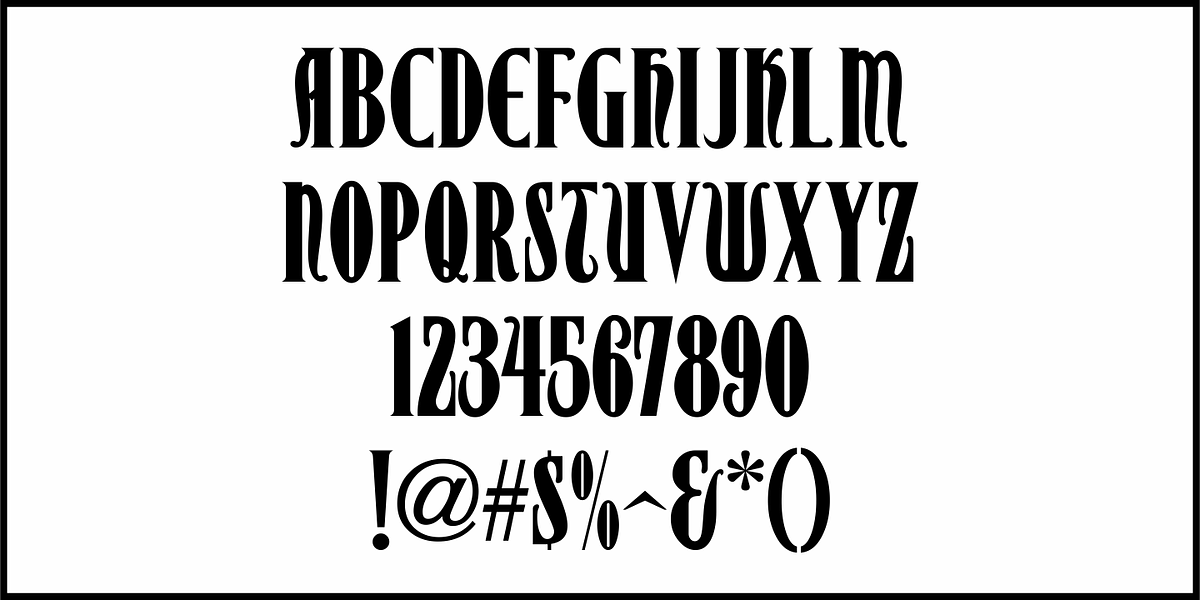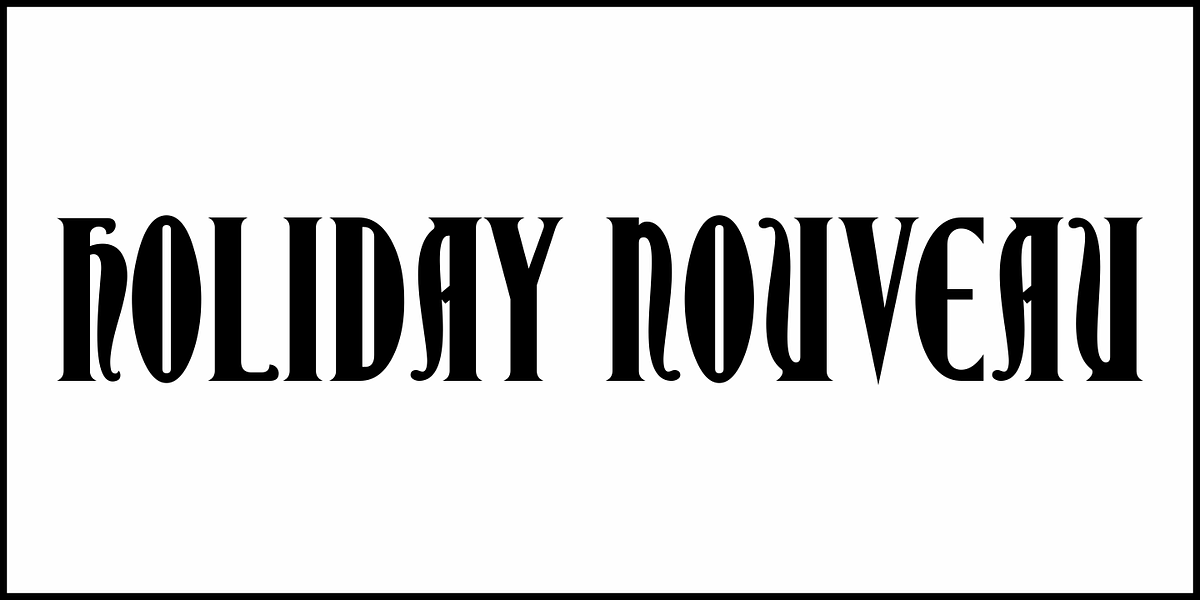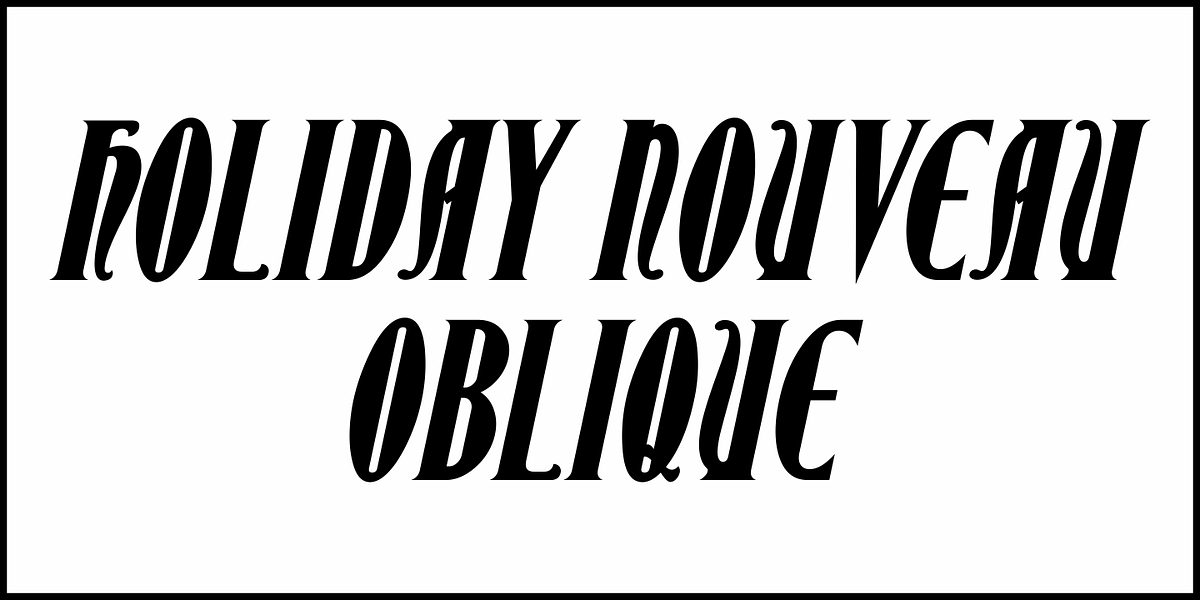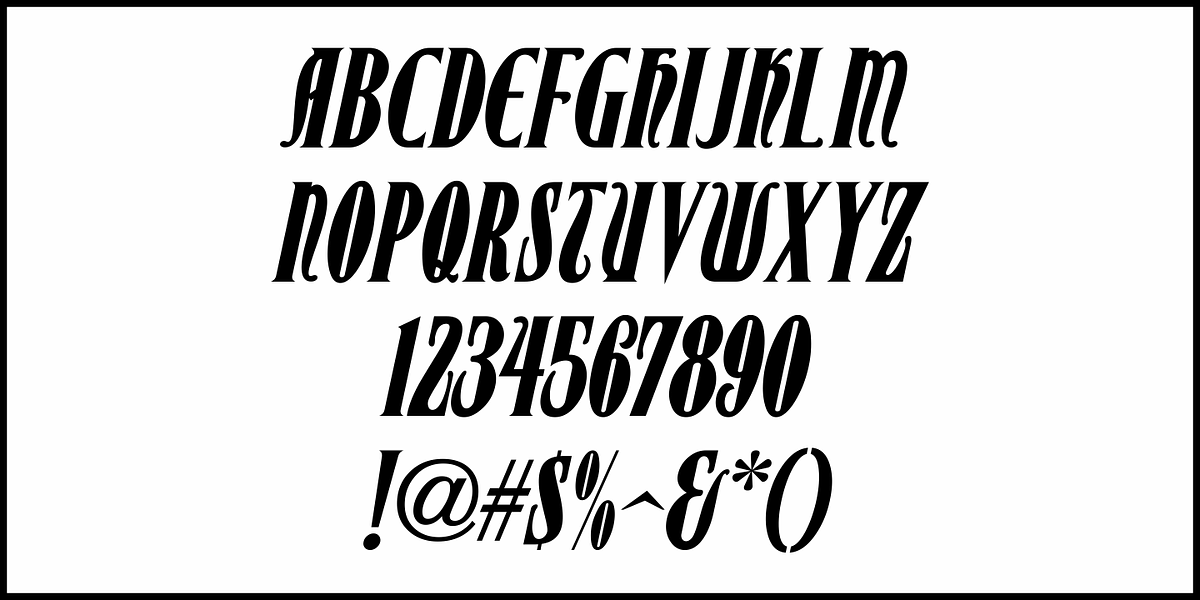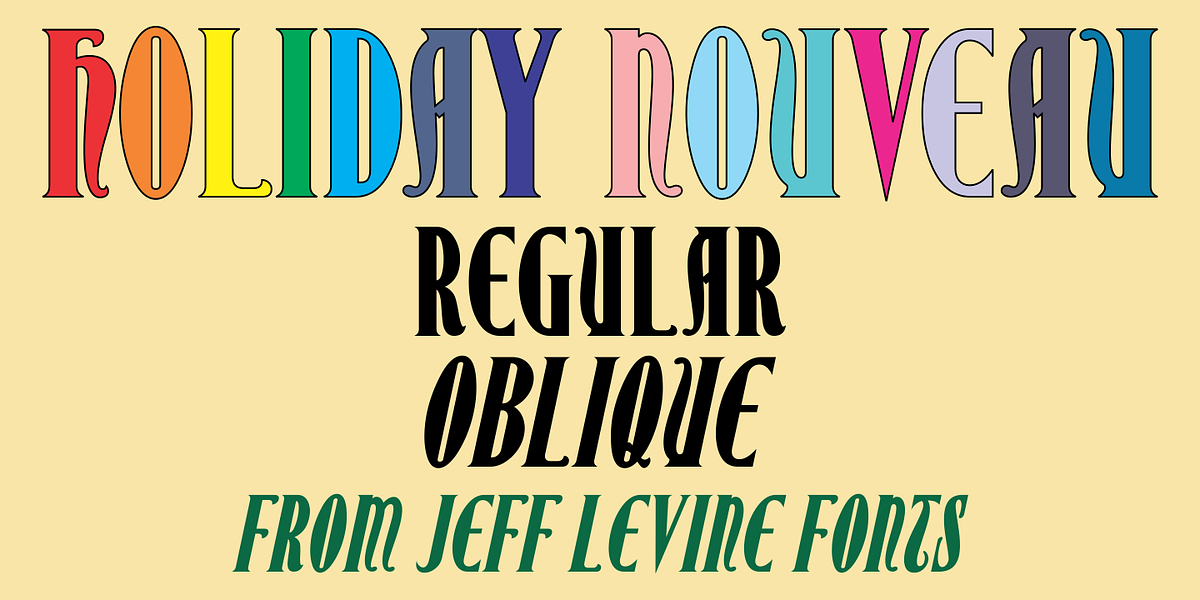
Holiday Nouveau JNL
A holiday issue for the then-weekly women’s fashion newspaper “Harper’s Bazar - Easter A. D. 1896” features the cover information in a beautiful condensed spurred serif type face with many flourishes to some of the letter forms.
This is now available as Holiday Nouveau JNL in both regular and oblique versions.